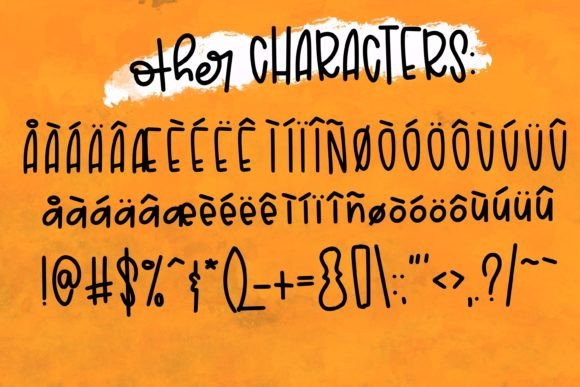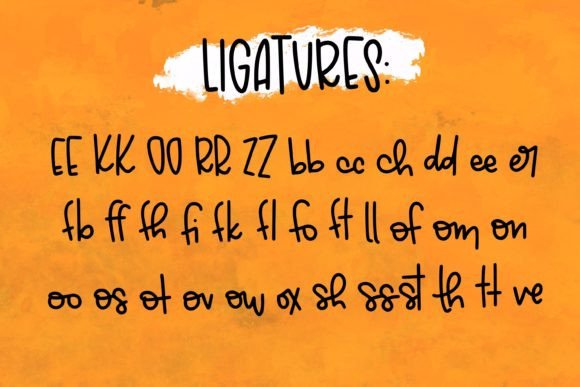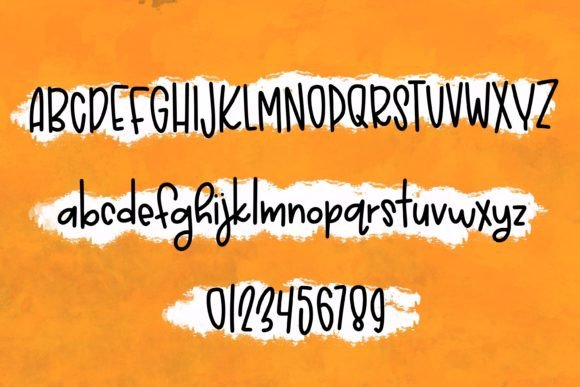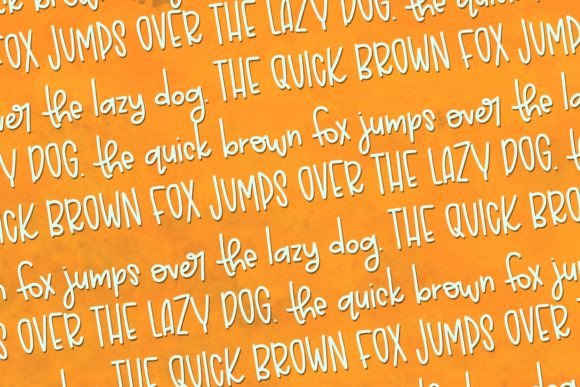
Amplifier Font: Turn Up the Volume with a Bold and Playful Typeface
Are you looking for a font that can help your designs make a statement? Look no further than Amplifier, a bold and playful font that’s ready to bring a rebellious yet fun-loving vibe to your projects. With its thick, energetic strokes and quirky character set, Amplifier is the perfect choice for designers and crafters who want to add a little excitement to their work.
The Perfect Font for Bold and Edgy Designs
Amplifier Font is a bold and edgy typeface that’s designed to grab attention. Its thick strokes and energetic lines give it a dynamic and playful feel that’s perfect for designs that need a little extra oomph. Whether you’re working on a logo, a poster, or a website, Amplifier is the perfect choice for adding a bold and rebellious touch.
Key Features of Amplifier Font
- Bold and Playful Strokes: Amplifier’s thick, energetic strokes give it a dynamic and playful feel that’s perfect for making a statement.
- Quirky Character Set: Amplifier’s quirky character set adds a fun-loving touch to your designs, making it perfect for projects that need a little personality.
- Rebellious yet Fun-Loving Vibe: Amplifier’s bold and edgy design gives it a rebellious yet fun-loving vibe that’s perfect for designers and crafters who want to add a little excitement to their work.
- Versatile: Amplifier is a versatile font that can be used for a wide range of projects, from logos and posters to websites and social media graphics.
How to Use Amplifier Font in Your Designs
Amplifier Font is easy to use and can be incorporated into your designs in a variety of ways. Here are a few ideas to get you started:
- Logos: Use Amplifier as a bold and edgy font for your logo, adding a rebellious touch to your brand identity.
- Posters: Amplifier is perfect for posters, adding a dynamic and playful touch to your designs.
- Websites: Use Amplifier as a bold and eye-catching font for your website headers and titles, adding a fun-loving touch to your online presence.
- Social Media Graphics: Amplifier is perfect for social media graphics, adding a bold and edgy touch to your posts and updates.
Tips and Tricks for Getting the Most Out of Amplifier Font
Here are a few tips and tricks for getting the most out of Amplifier Font:
- Experiment with Different Sizes: Amplifier looks great in a variety of sizes, so don’t be afraid to experiment and find the perfect size for your design.
- Pair with Other Fonts: Amplifier pairs well with a variety of other fonts, so try pairing it with a more elegant or refined font to add contrast to your design.
- Use it Sparingly: Amplifier is a bold font, so use it sparingly to add emphasis and impact to your designs.
Amplifier Font is a bold and playful typeface that’s perfect for designers and crafters who want to add a rebellious yet fun-loving touch to their projects. With its thick, energetic strokes and quirky character set, Amplifier is the perfect choice for making a statement. So why not turn up the volume with Amplifier and add a little excitement to your designs?